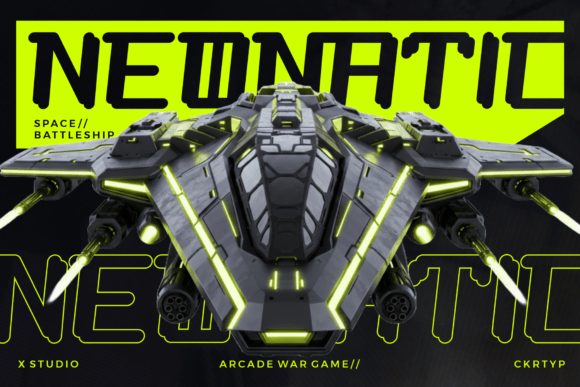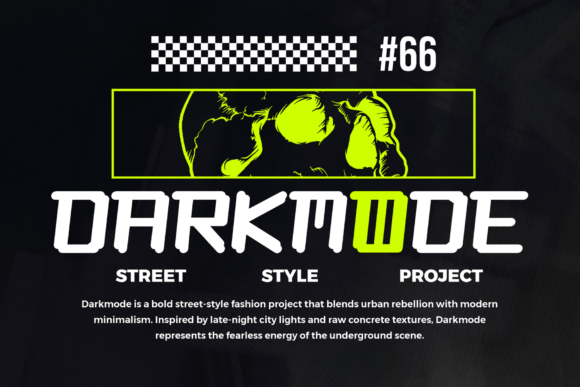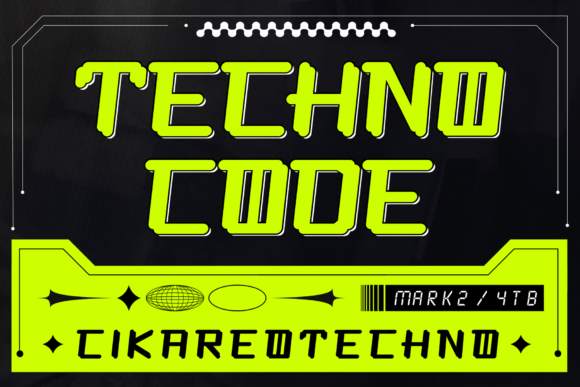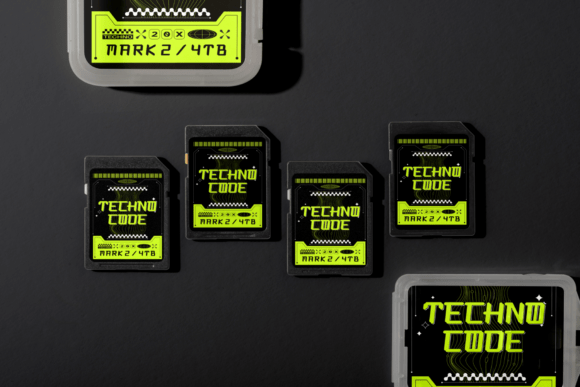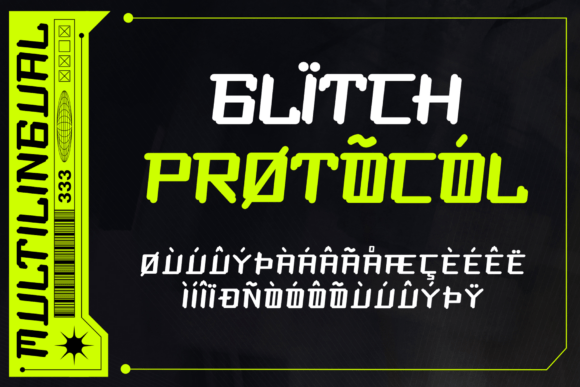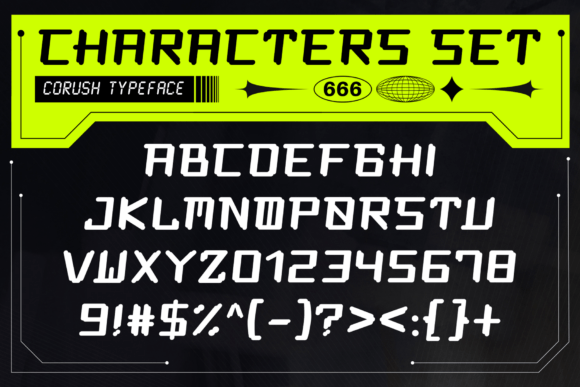
Immerse in the World of Tomorrow with Corush Font
In the realm of typography, few fonts have managed to capture the essence of a futuristic world as seamlessly as Corush. This spellbinding, tech-inspired font is tailor-made for creators, brands, and designers looking to infuse their visual narrative with a dose of futuristic vigor. Drawing its essence from cyberpunk technology, robotics, and the ultramodern spectacle of sci-fi aesthetics, Corush is a testament to the transformative power of geometric precision and clean modularity.
The Design Philosophy of Corush
Corush is a true reflection of contemporary design at its apex. Its sleek corners and sharp lines are reminiscent of the luminescent landscapes of neon cities and digital screens. Every character in the Corush font sequence is meticulously crafted and accented with bold lines and subtly curved edges. This design choice achieves a symbiotic blend of power with grace, and boldness with beauty, making Corush an exceptional choice for projects with a forward-thinking ethos.
Key Features of Corush Font
- Geometric Precision: Corush boasts a geometric design that is both precise and futuristic, making it perfect for projects that require a modern and sleek aesthetic.
- Clean Modularity: The font’s modular design ensures that each character is easily recognizable, contributing to a clean and cohesive visual narrative.
- Bold Lines and Subtle Curves: The bold lines and subtle curves in Corush achieve a perfect balance between power and elegance, making it suitable for a wide range of design applications.
Applications of Corush Font
Corush is not just a font; it’s an experience. Its futuristic appeal makes it an ideal choice for:
- Branding: Give your brand a futuristic edge with Corush. Its unique design ensures that your brand stands out in a crowded marketplace.
- Web Design: Enhance your website’s visual narrative with Corush. Its clean and geometric design ensures a seamless user experience.
- Graphic Design: From brochures to billboards, Corush can elevate your graphic design projects with its futuristic and sleek aesthetic.
- Film and Video Production: Add a touch of futurism to your film and video productions with Corush. Its bold lines and geometric precision make it perfect for titles, subtitles, and credits.
Why Choose Corush?
In a world where visual narrative is king, Corush offers a unique opportunity to future-proof your designs. Here are a few reasons why Corush should be your go-to font:
- Uniqueness: Corush’s futuristic design ensures that your projects stand out from the crowd.
- Versatility: From digital platforms to print media, Corush can be used across a wide range of design applications.
- Professionalism: Corush’s sleek and geometric design exudes professionalism, making it perfect for projects that require a modern and sophisticated aesthetic.
Corush is more than just a font; it’s a gateway to the future of design. Its unique blend of geometric precision, clean modularity, and futuristic appeal makes it an exceptional choice for creators, brands, and designers looking to infuse their visual narrative with a dose of futurism. Whether you’re working on a branding project, website design, or graphic design, Corush can enhance your creative output and give it a forward-thinking edge. So, why wait? Immerse yourself in the world of tomorrow with Corush font and discover a new dimension of design possibilities.